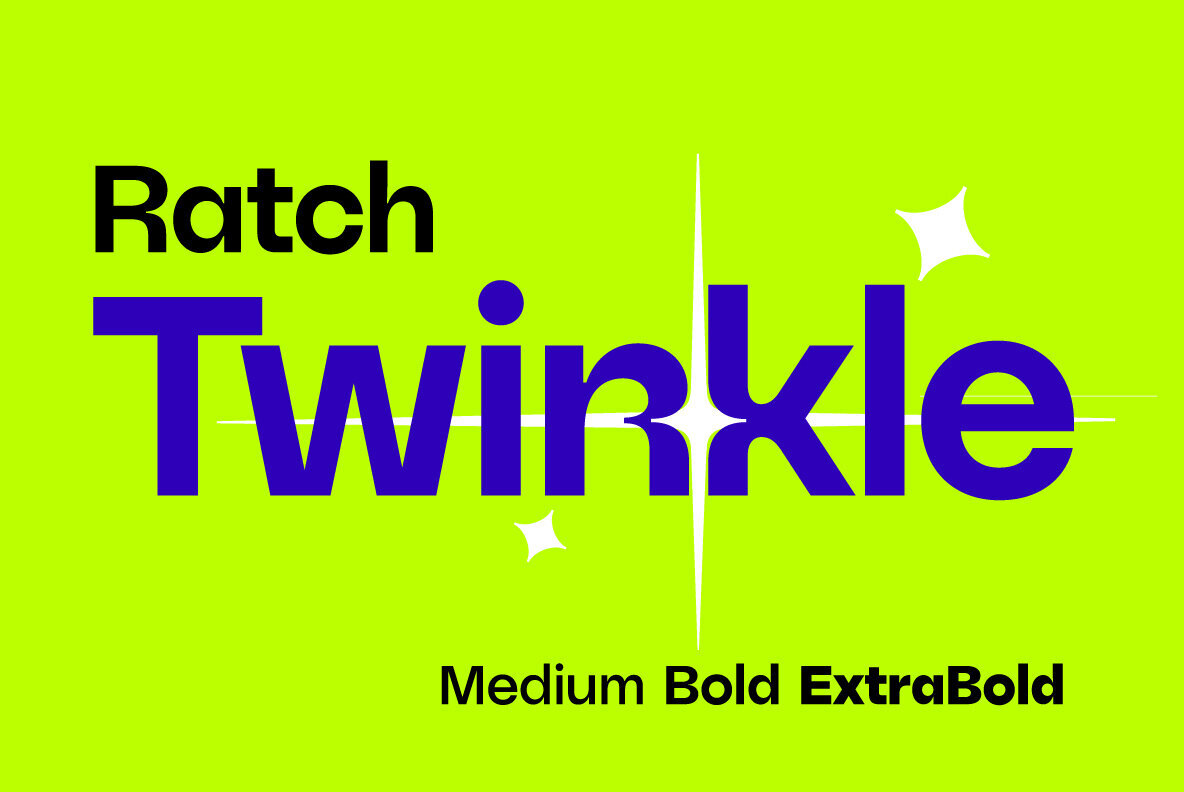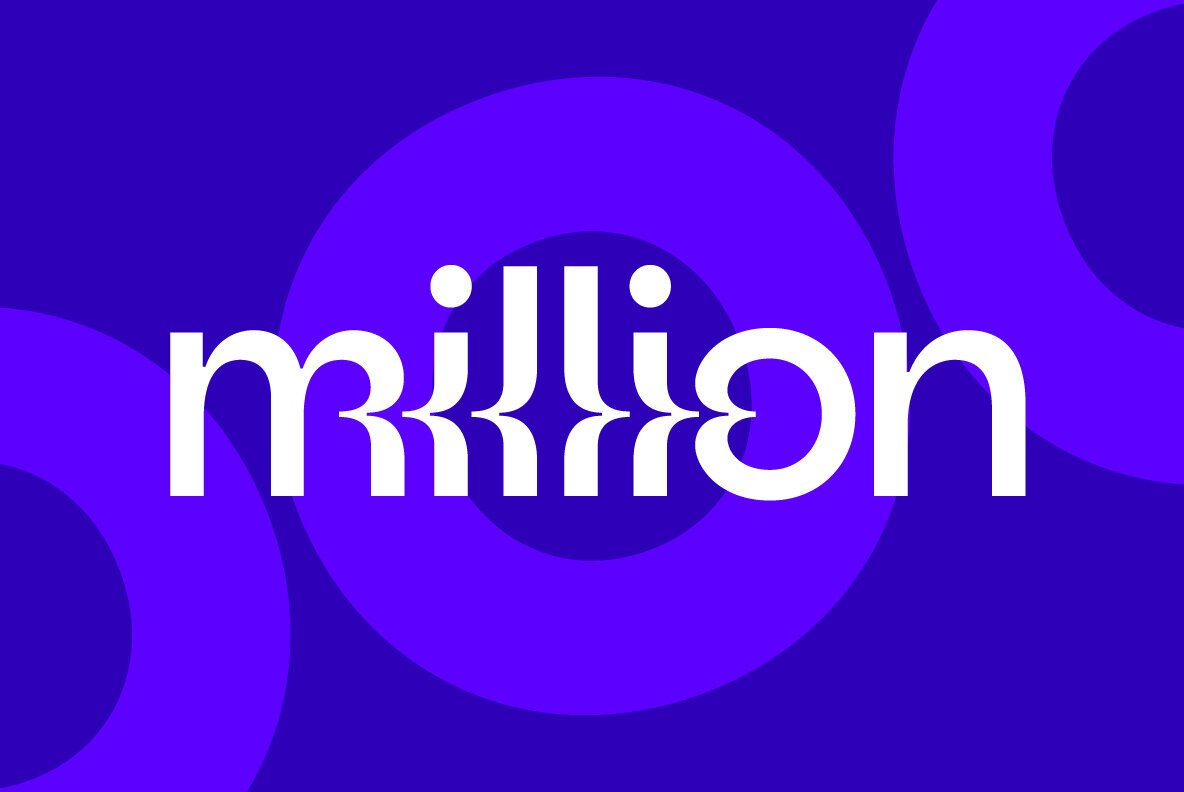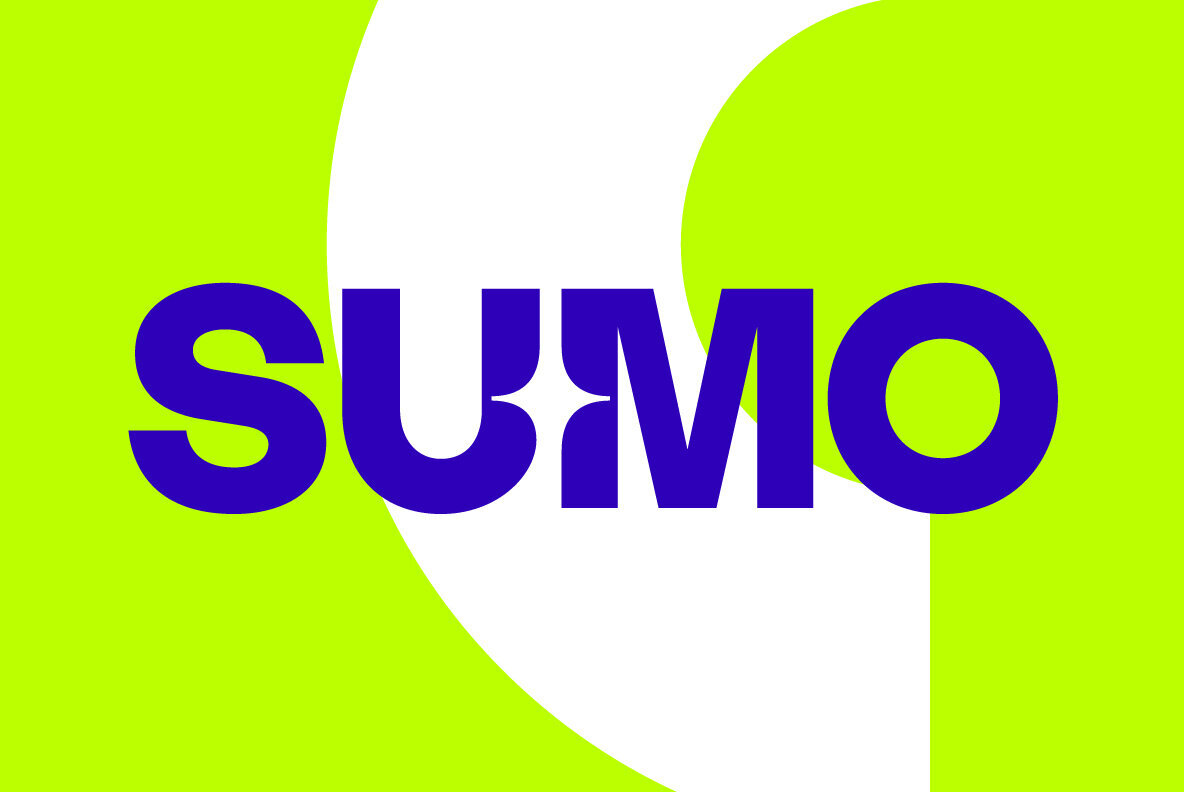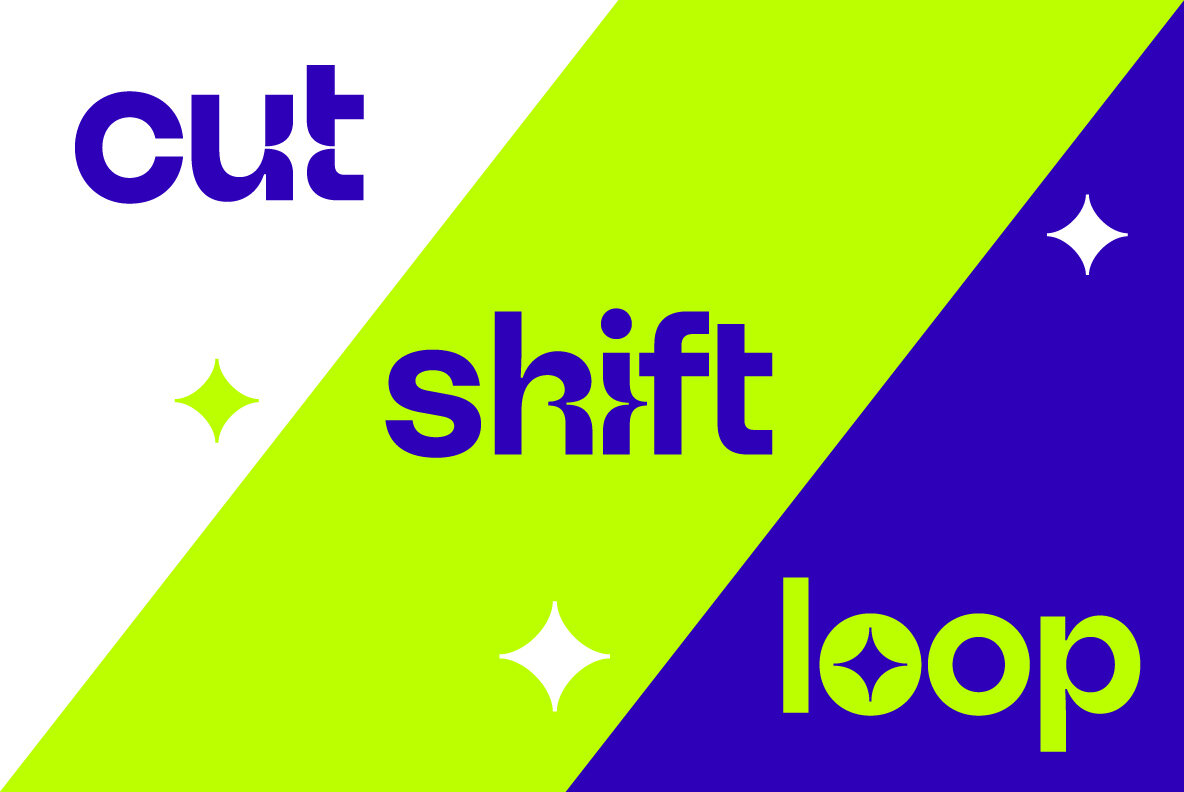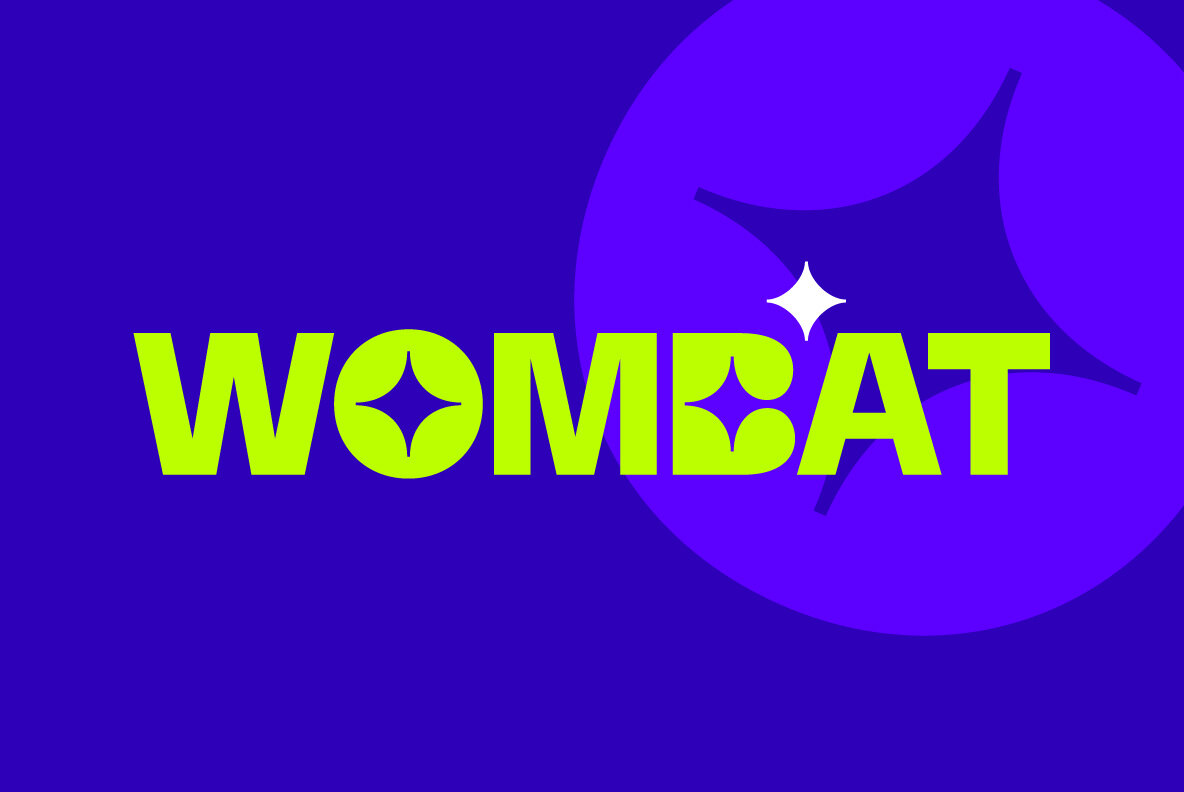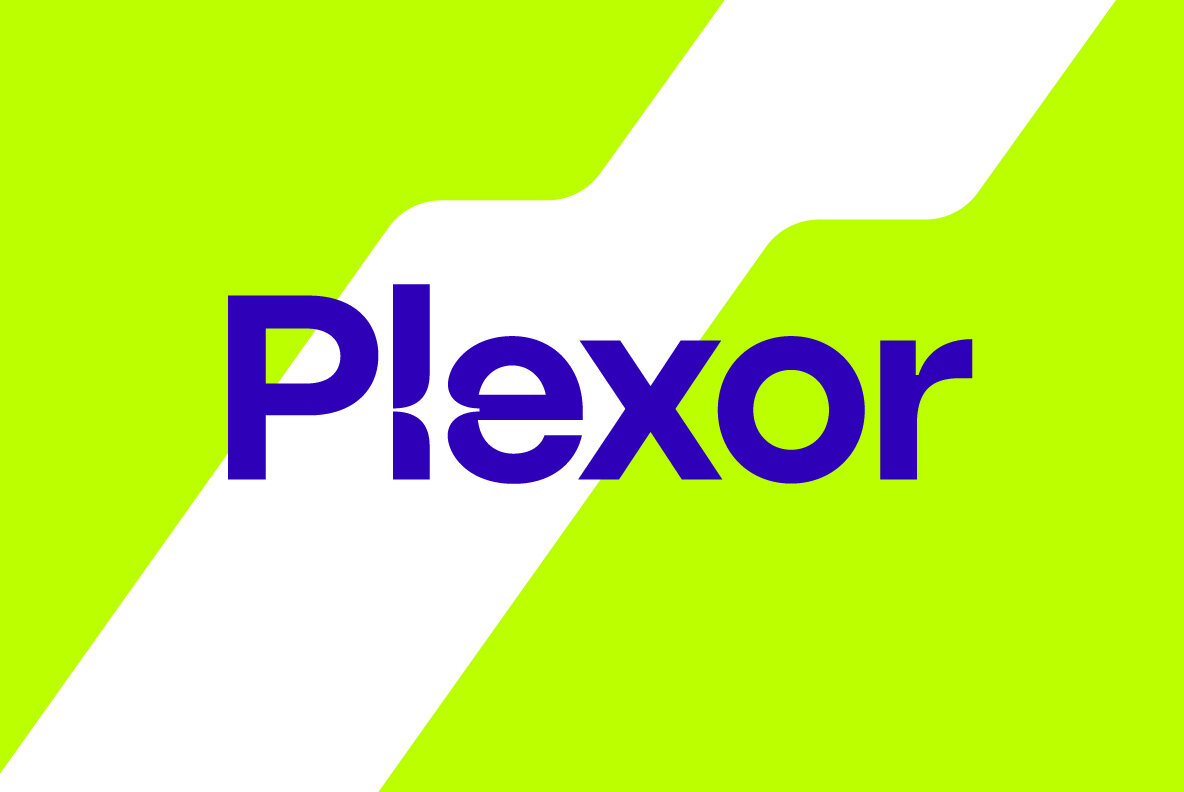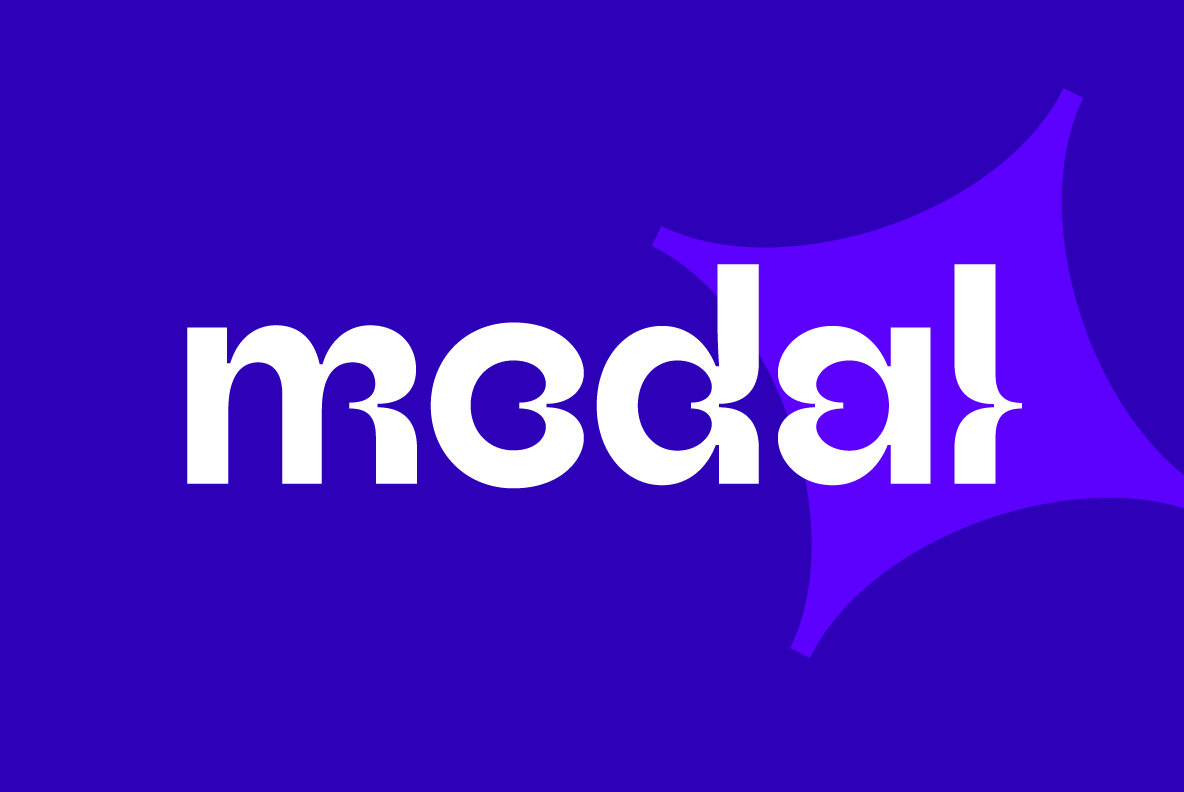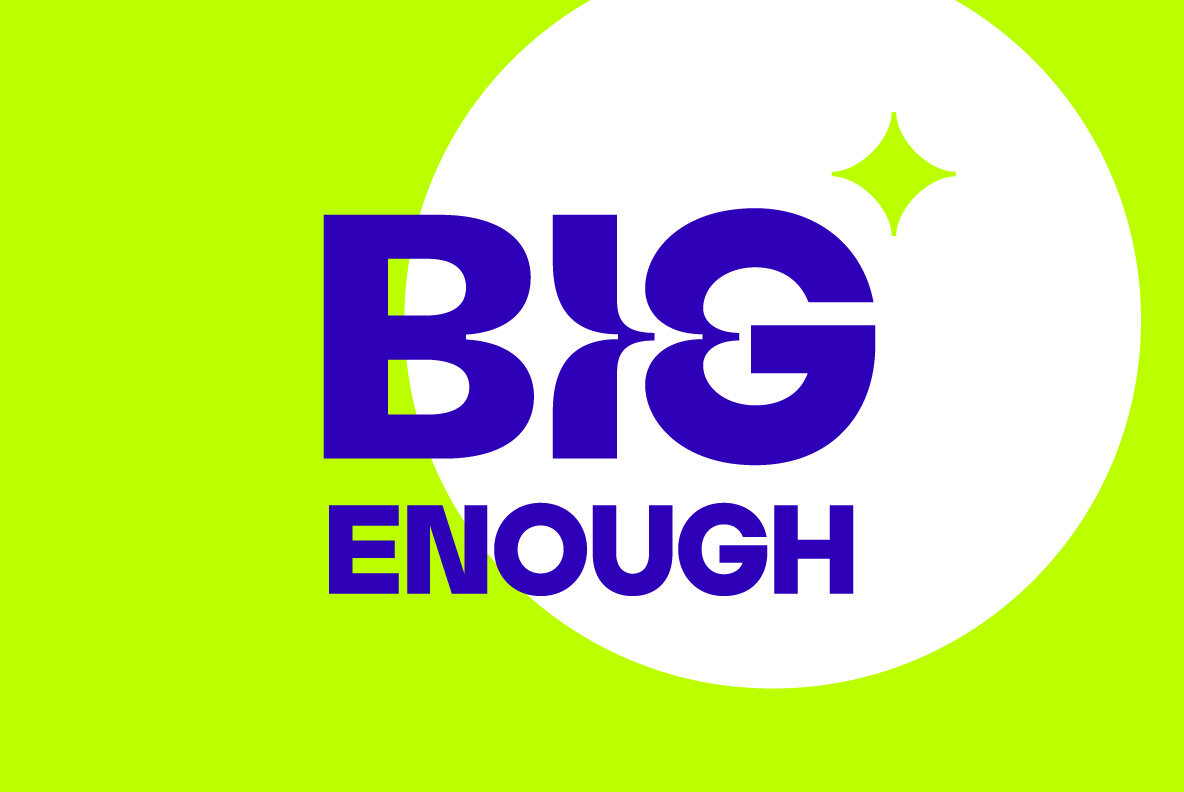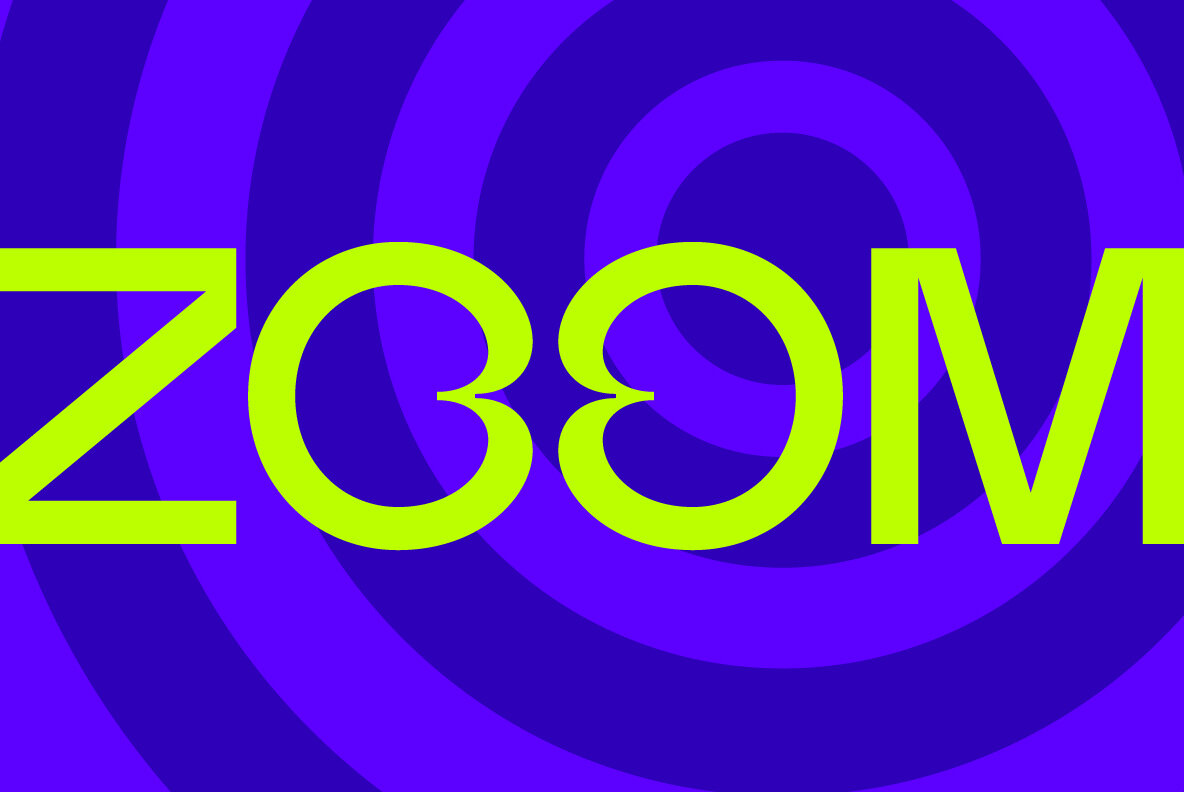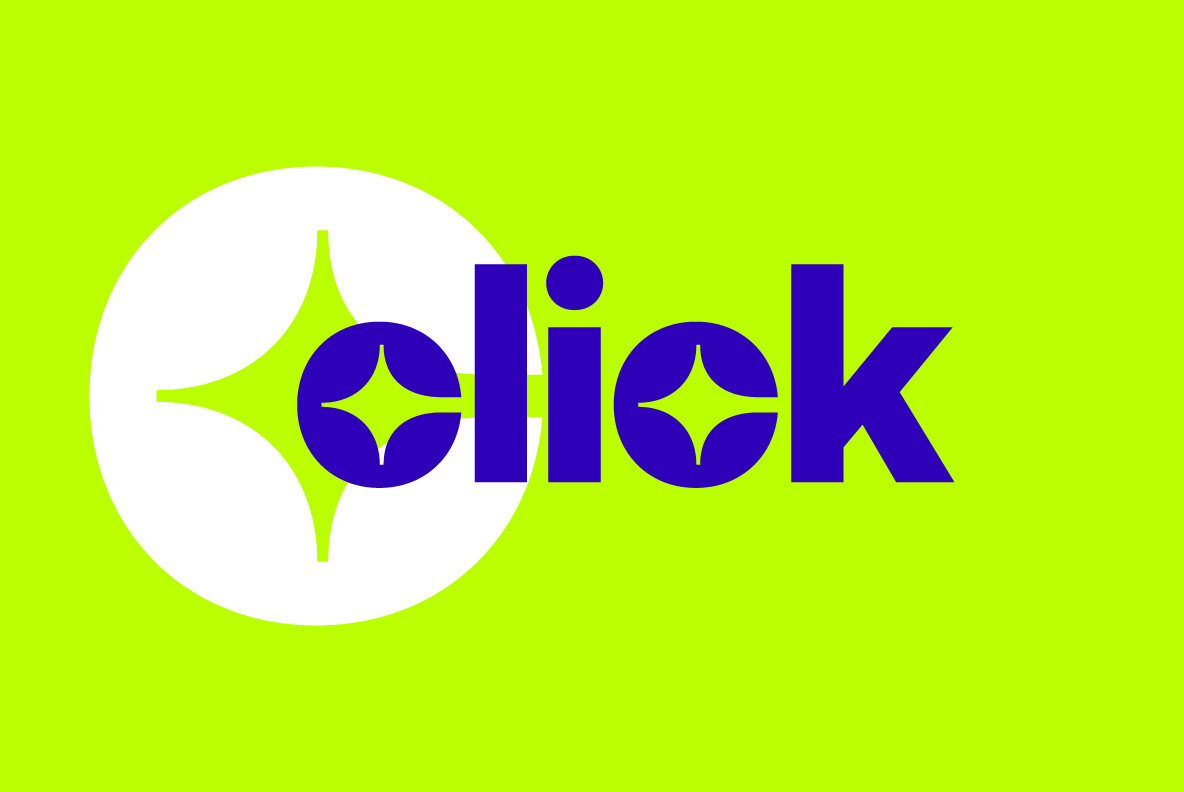
Ratch Twinkle Font
Ratch Twinkle Medium
Ratch Twinkle Bold
Ratch Twinkle ExtraBold
Introducing Ratch Twinkle, a sophisticated geometric grotesk typeface crafted for modern design. Available in three distinct weights—Medium, Bold, and ExtraBold—it is a seamless addition to the esteemed Ratch font family. This versatile typeface boasts a wide array of alternate characters, offering designers the flexibility to create personalized and impactful lettering.Ratch Twinkle: A Geometric Grotesk Typeface